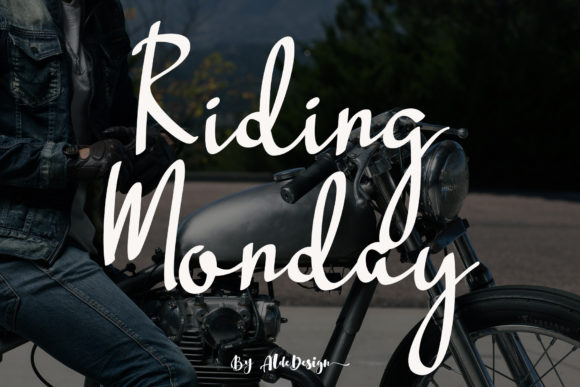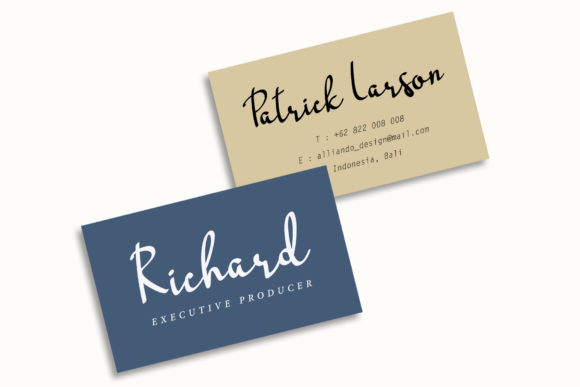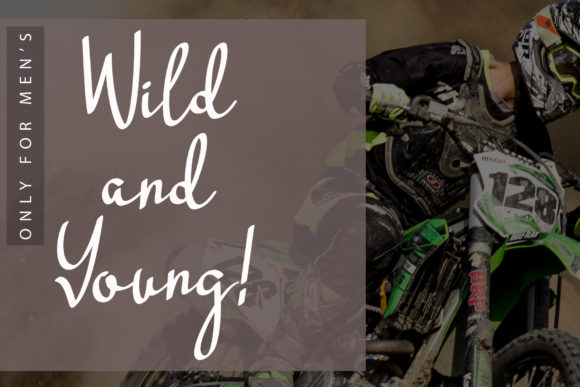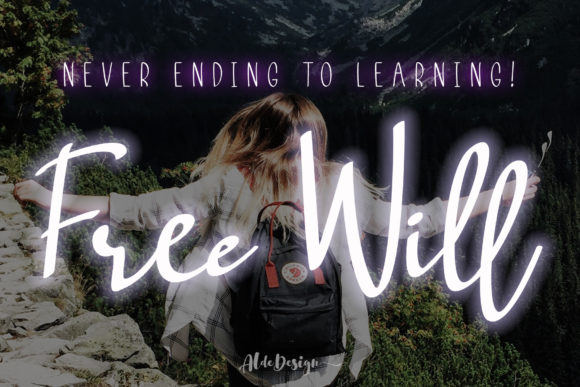
Riding Monday Font
About Riding Monday Font
The Riding Monday is a simple, yet classy typeface. It includes beginning and ending swashes which are perfect for adding a stylish and elegant look to your designs.
It can be used for watermarks, photography, signatures, logos, album covers, business cards, quotes, and many other design projects.